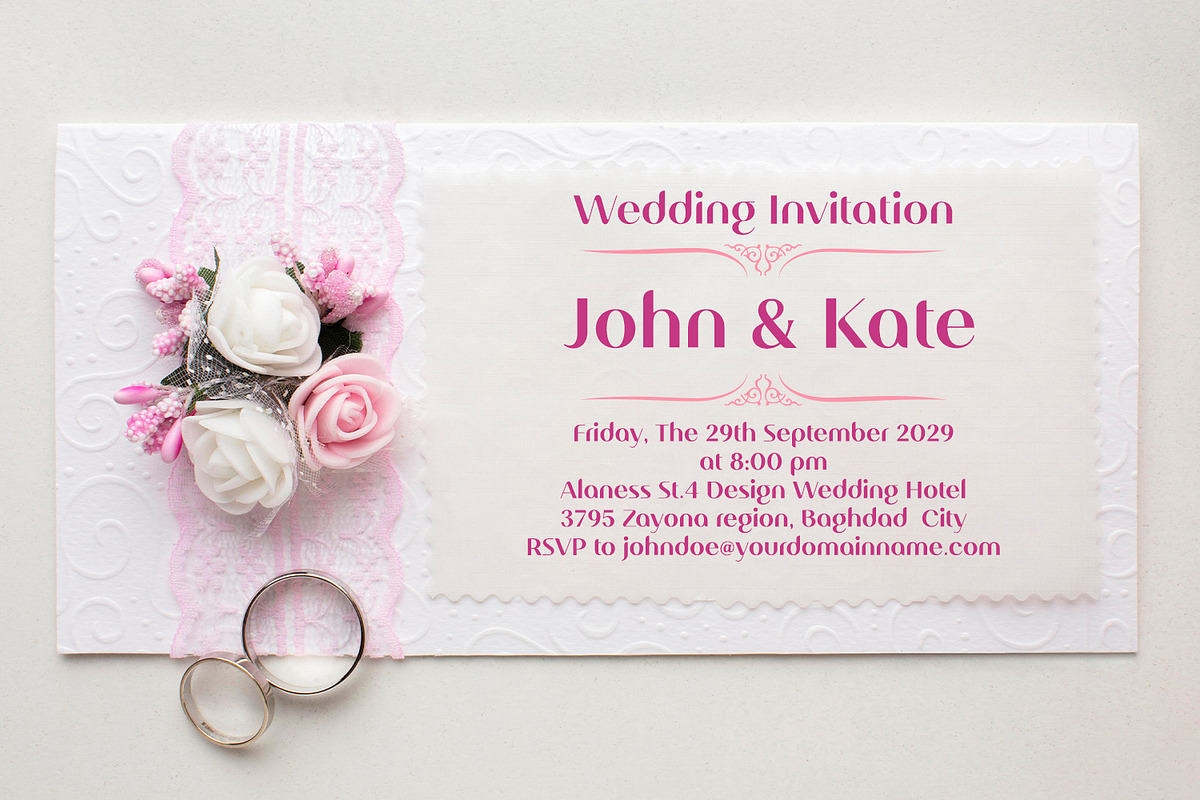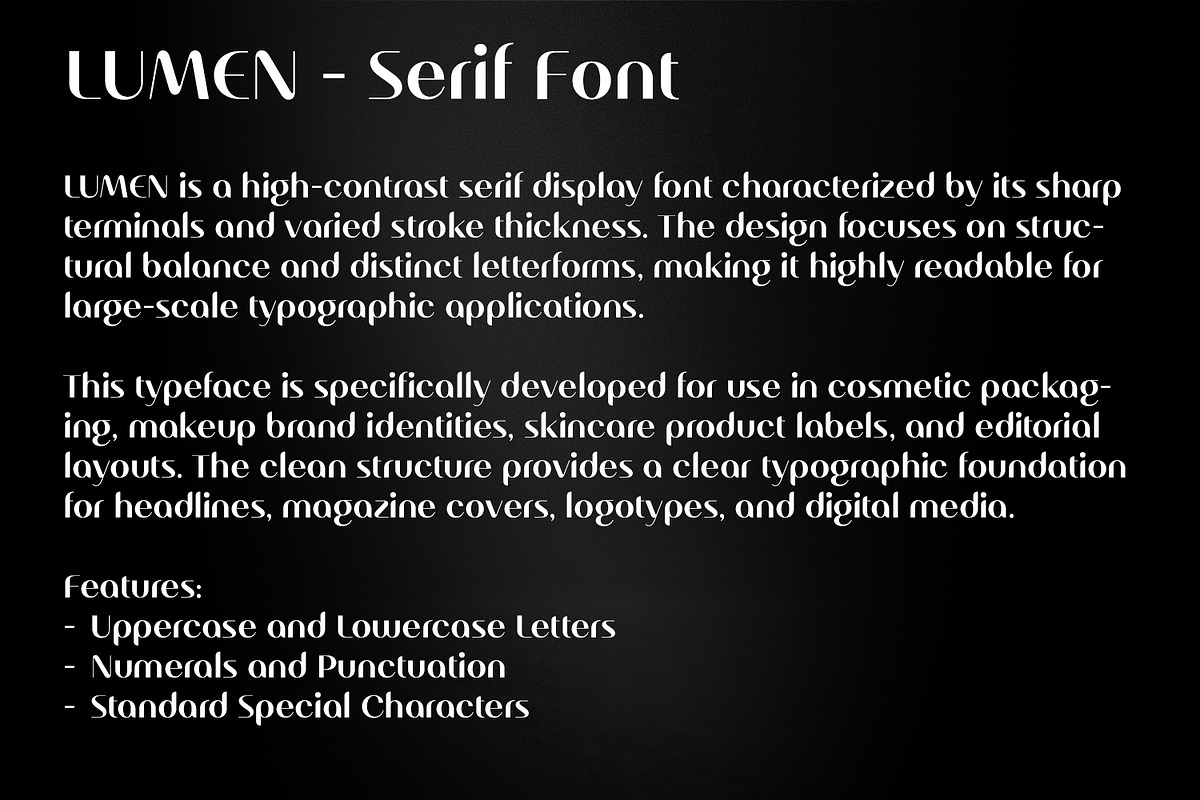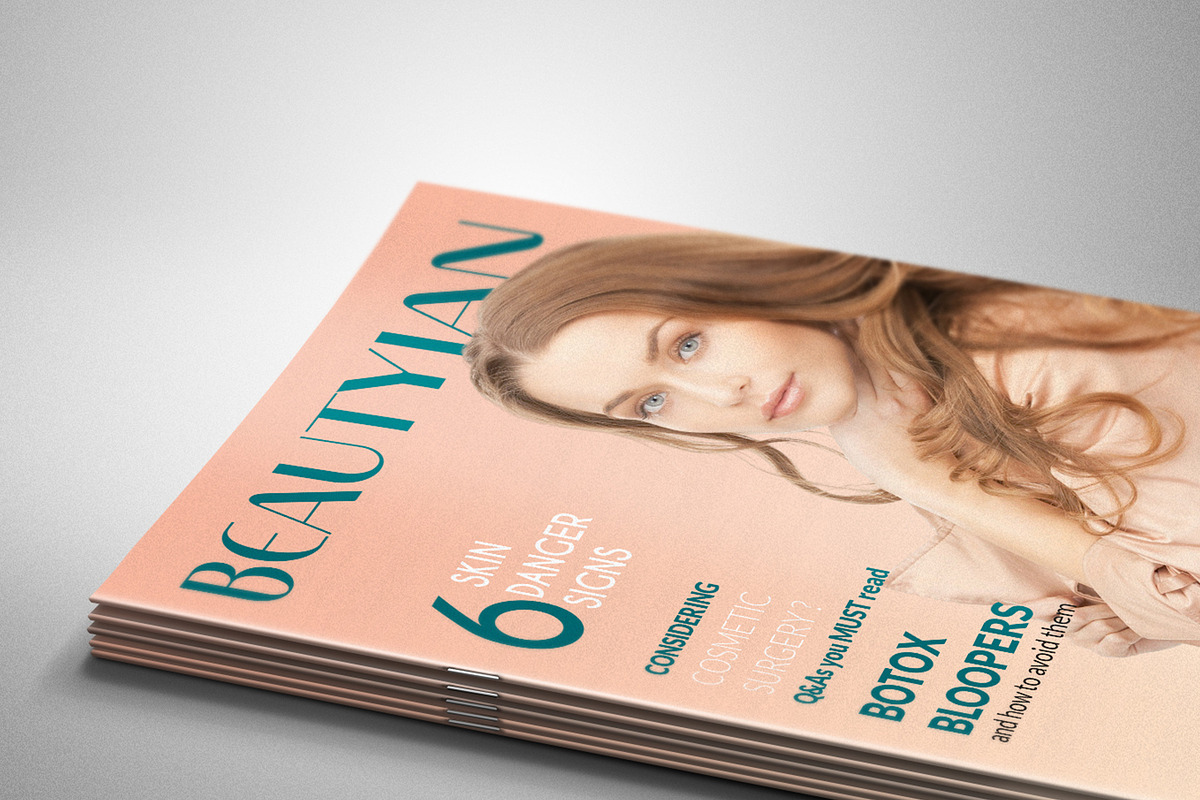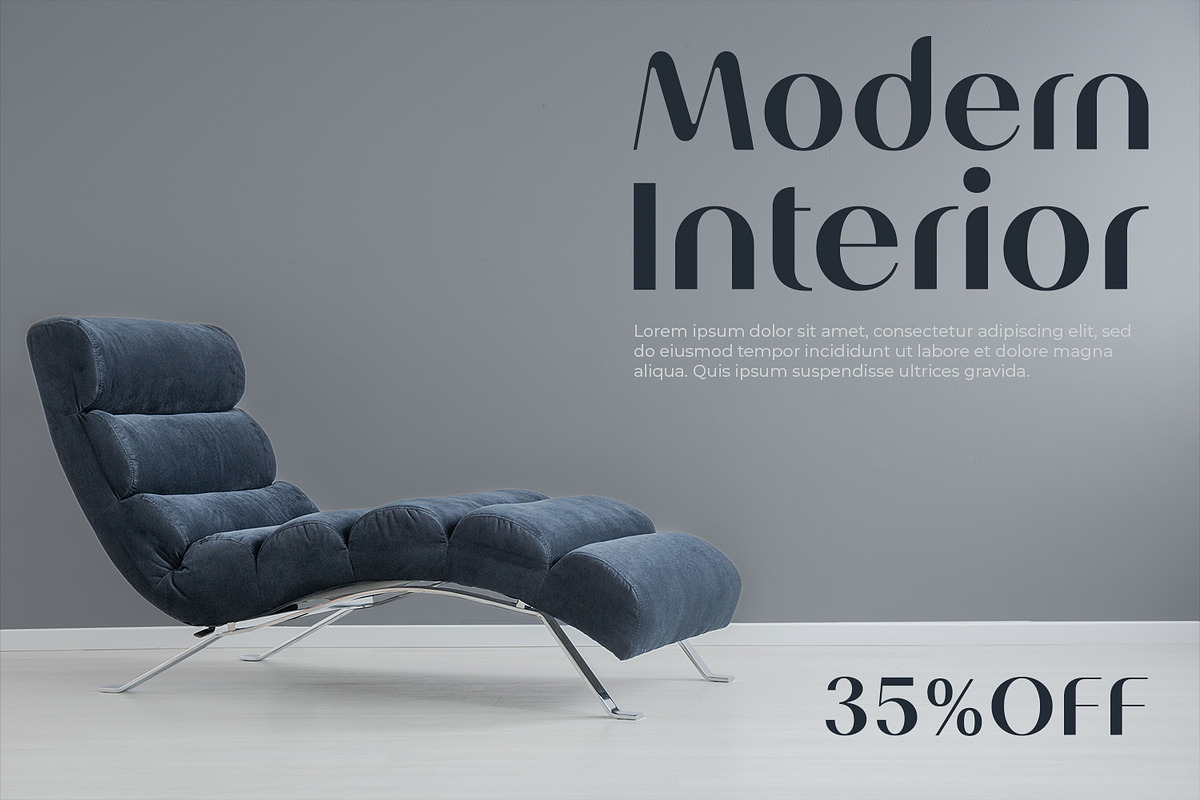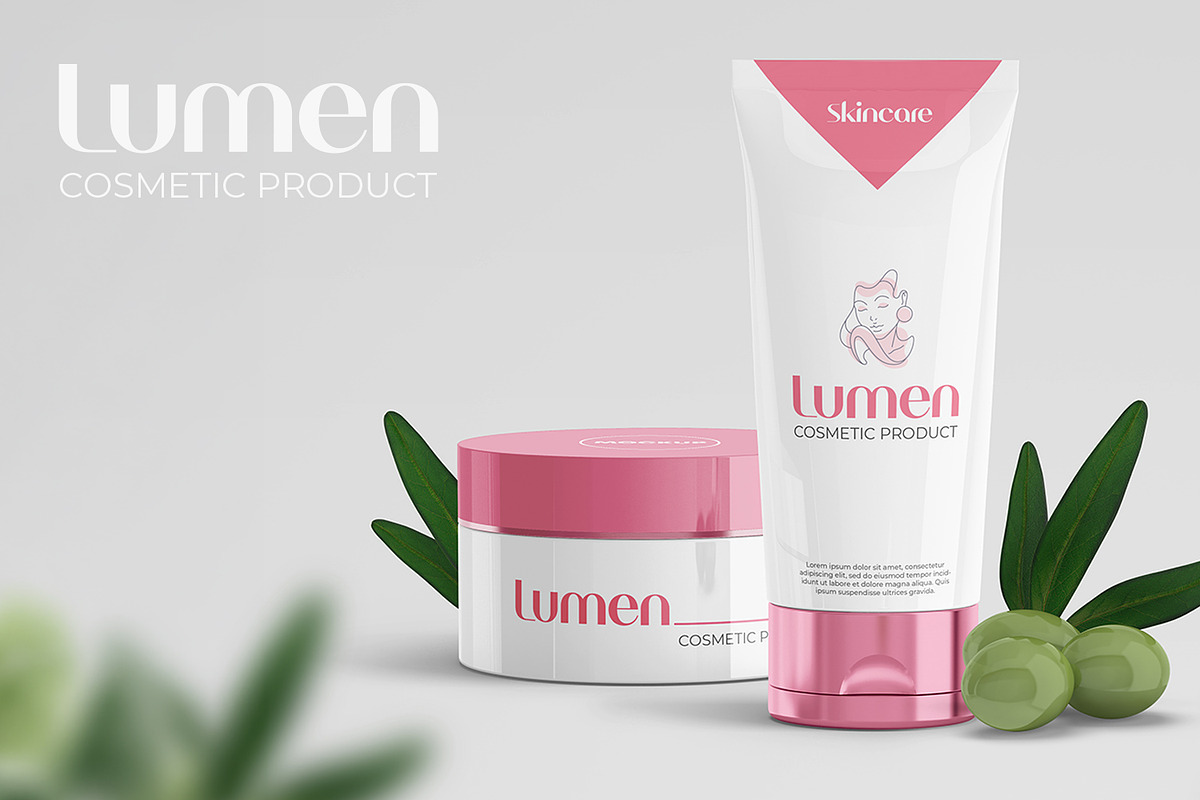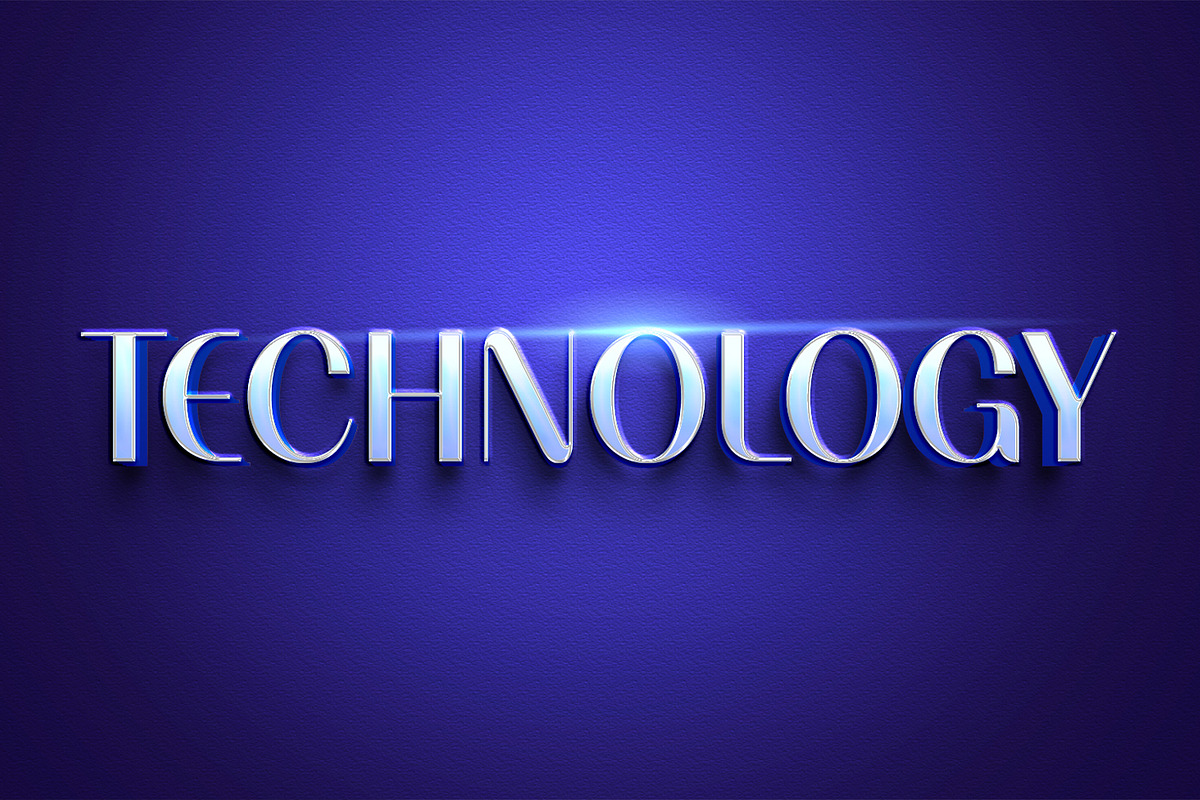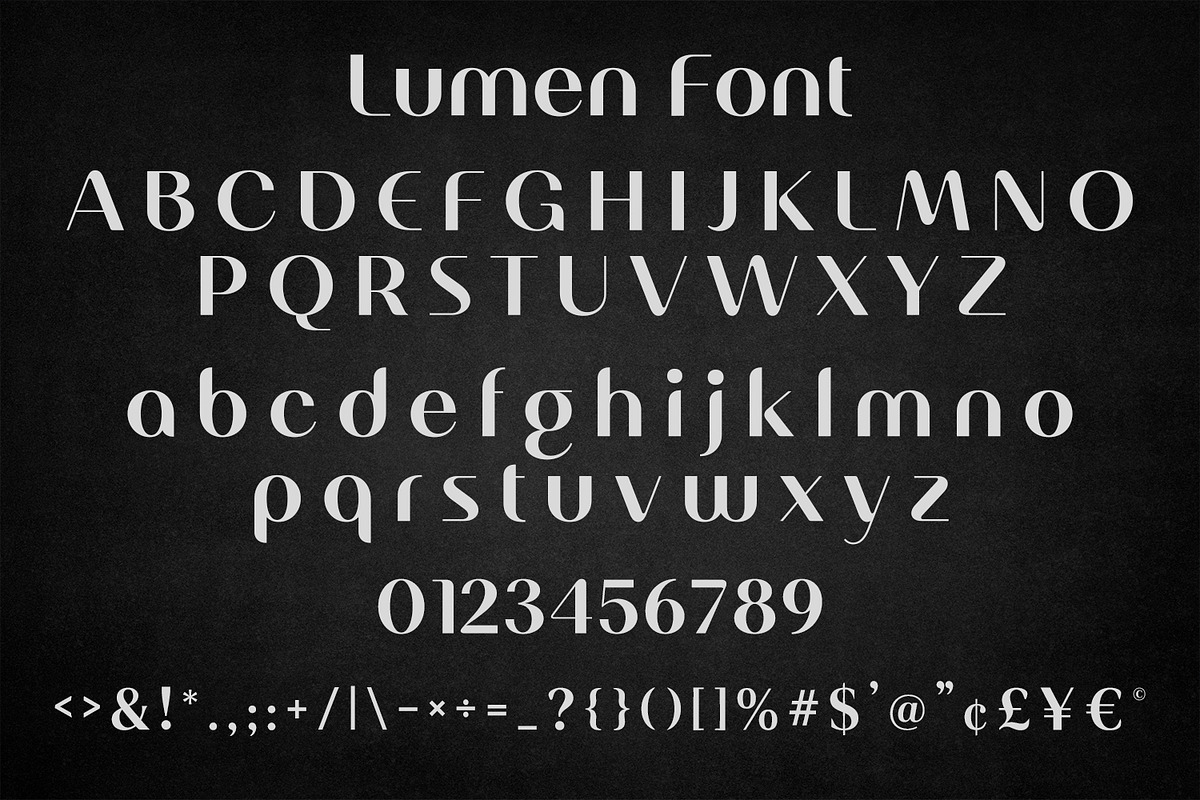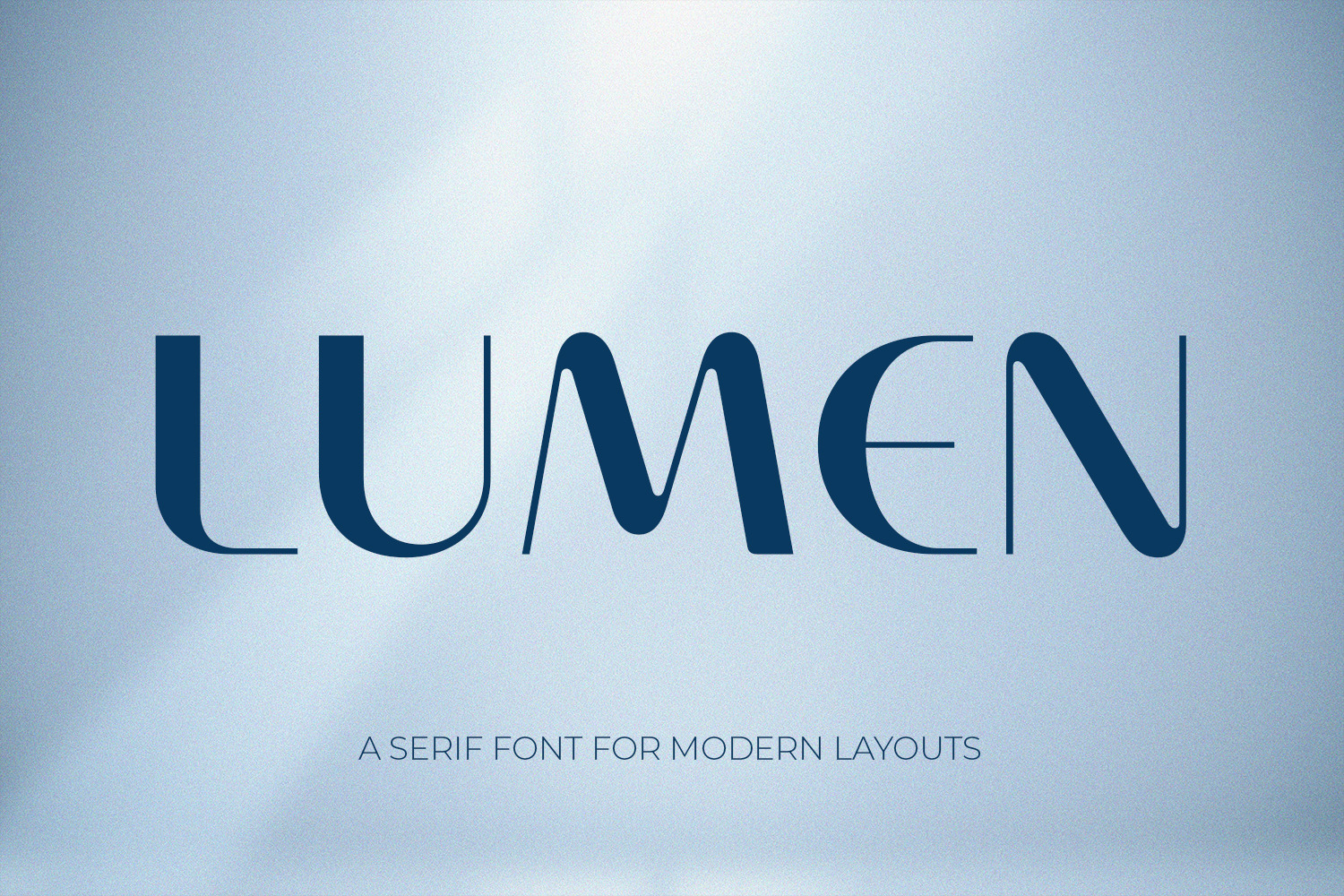
Lumen - High Contrast Serif Font
Lumen is a high-contrast serif display font characterized by its sharp terminals and varied stroke thickness. The design focuses on structural balance and distinct letterforms, making it highly readable for large-scale typographic applications. This typeface is specifically developed for use in cosmetic packaging, makeup brand identities, skincare product labels, editorial layouts, and event invitations. The clean structure provides a clear typographic foundation for headlines, magazine covers, logotypes, and digital media.